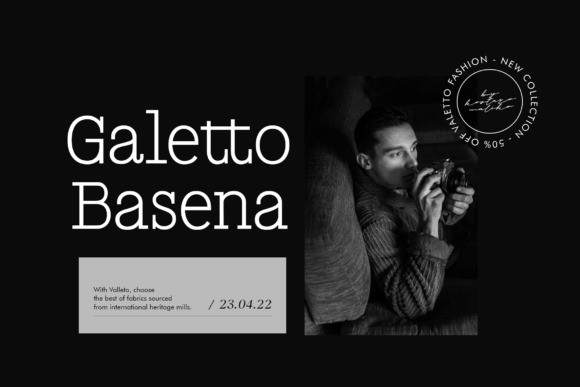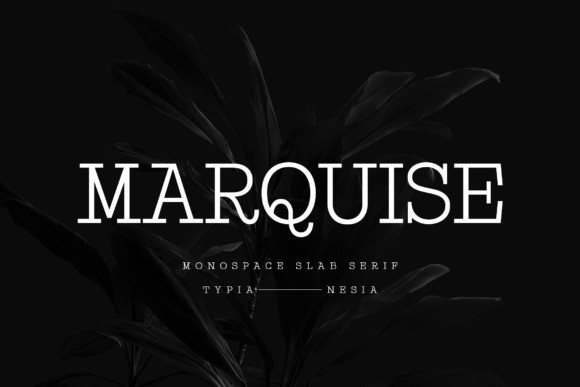
Marquise Font
Marquise Font – Modern Monospace Serif Font – Luxury Classy Logo Brand Font – Vintage Classic Font
Marquise is perfect for your upcoming projects such as classic logo and branding, classic editorial design, magazine, fashion promotional, Sports and Game designs, Ticket designs, stationery designs, blog designs, advertising designs, music, men’s skincare, art quotes, home decor, book/novel cover titles, special events, and any more.